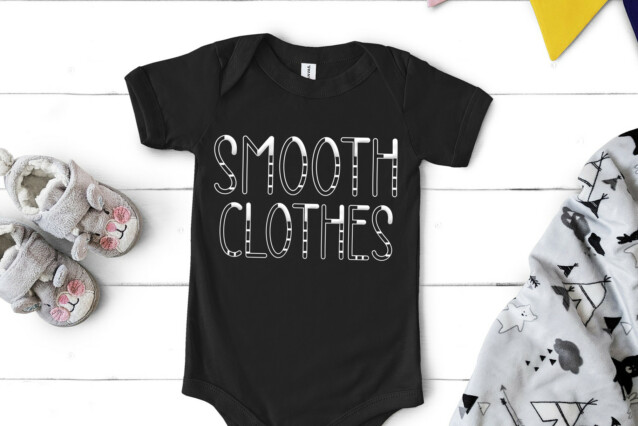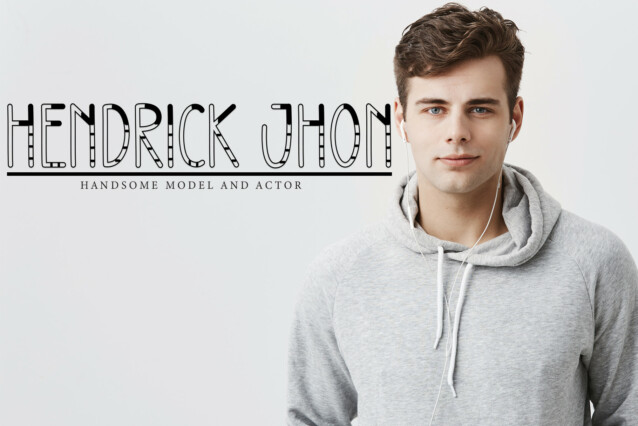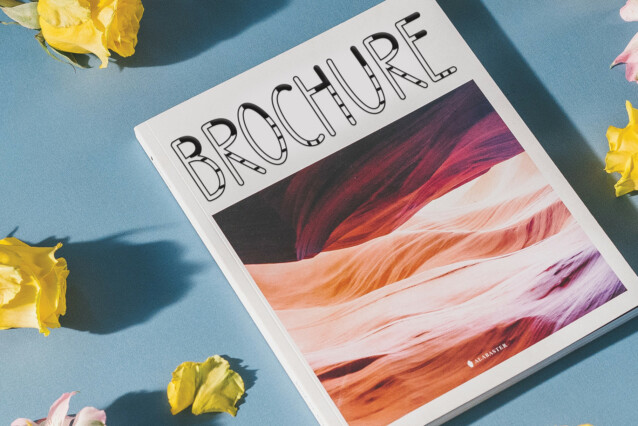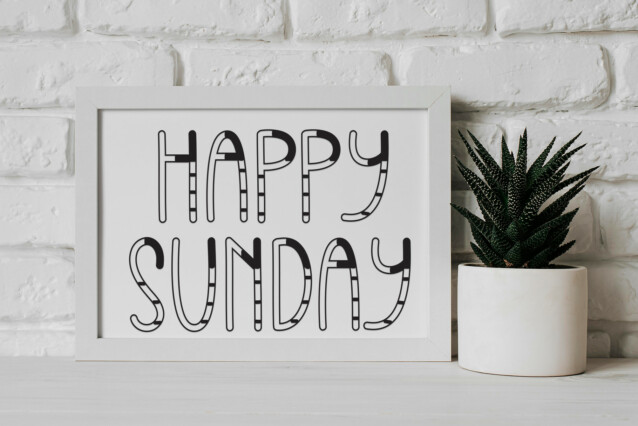
Milktea Sunday Display Font is a sweet and friendly handwritten display font. Cute and fun, this font is ideal for writing wedding invitations, cards, or any other design that might need a playful touch!